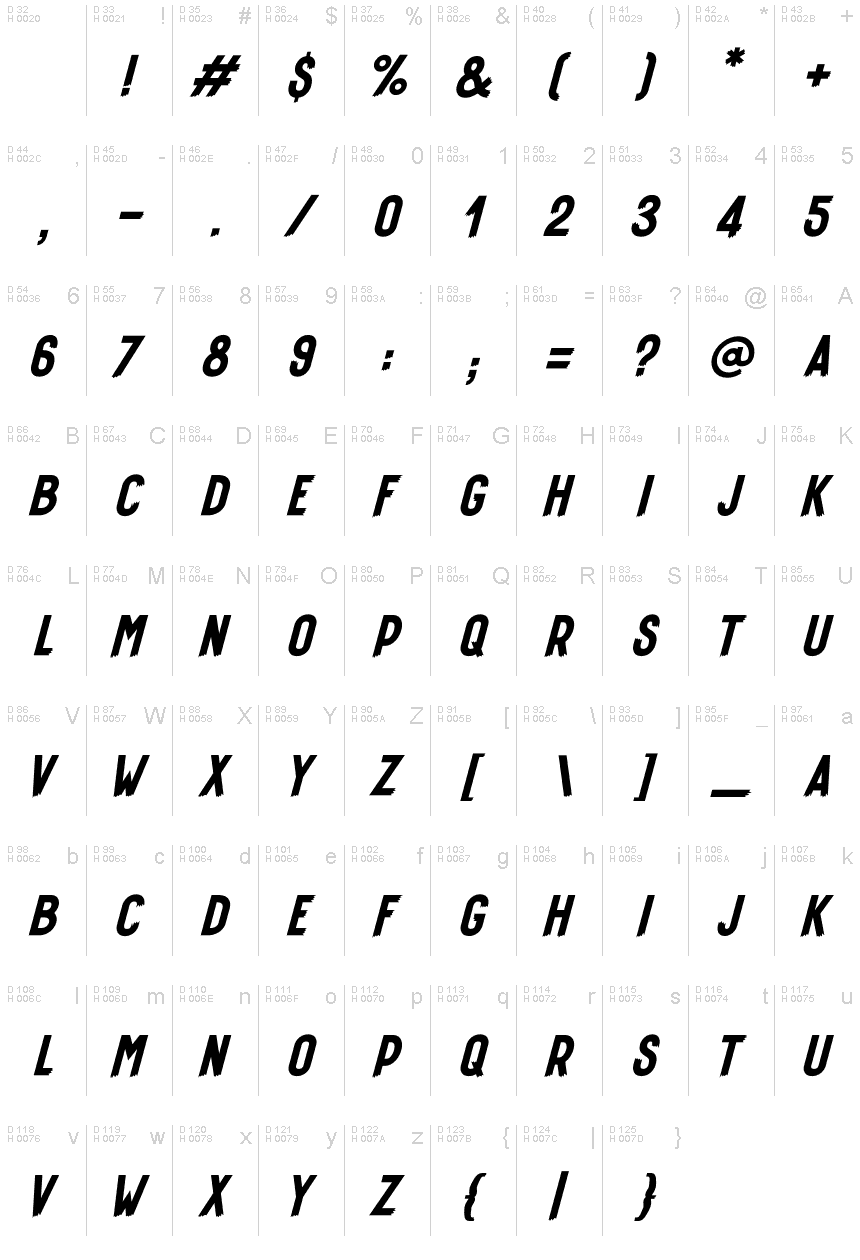
HyperPolarBrushItalic
HyperPolar Brush Italic, from the renowned HyperPolar Brush font family designed by Bisou, exudes boldness and creativity. Its sans serif style combined with a brush-like texture adds a touch of playfulness to any project.
Perfect for eye-catching headlines, captivating logos, or artistic posters that demand attention. The italic variation of this display font effortlessly enhances the overall aesthetics of designs that aim to stand out from the crowd.
Let your imagination run wild and unleash the full potential of HyperPolar Brush Italic in your next design endeavor.
Perfect for eye-catching headlines, captivating logos, or artistic posters that demand attention. The italic variation of this display font effortlessly enhances the overall aesthetics of designs that aim to stand out from the crowd.
Let your imagination run wild and unleash the full potential of HyperPolar Brush Italic in your next design endeavor.